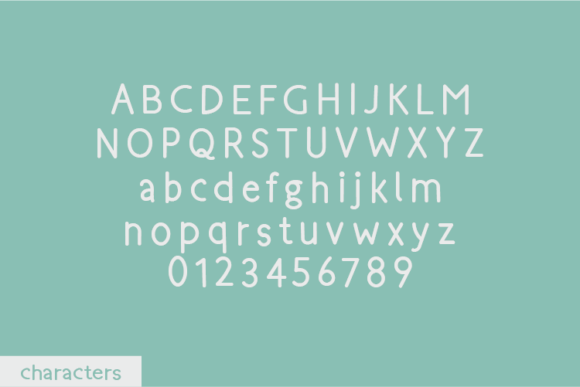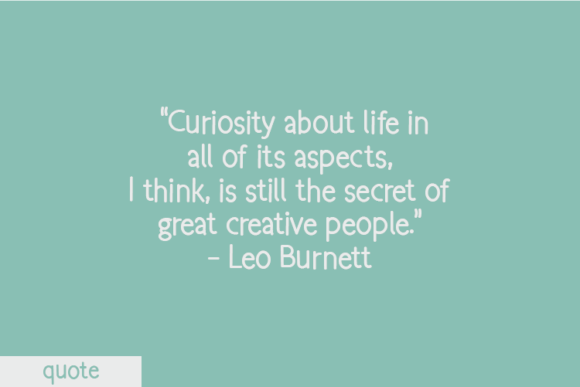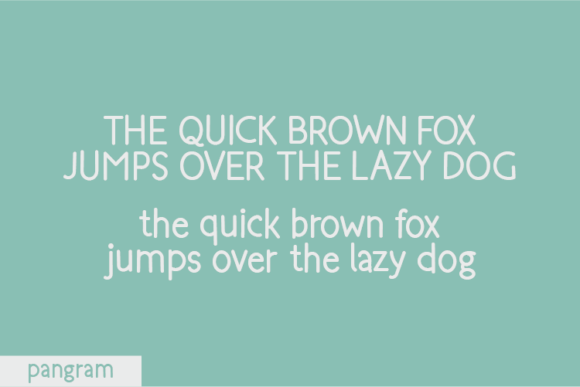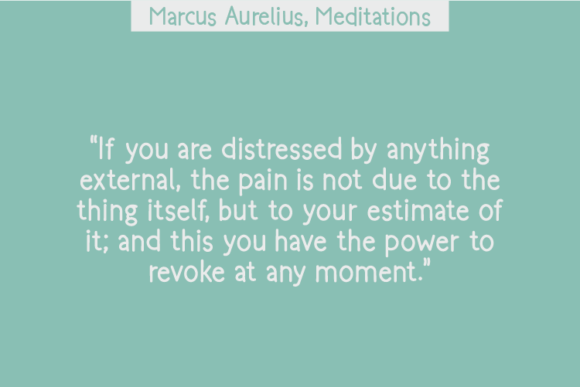
Breezing Font: A Unique Handwritten Style for Creative Designs
In the world of typography, fonts play a crucial role in conveying the tone and personality of a design. For designers and crafters looking for a unique and natural handwritten font, Breezing is an excellent choice. This font has gained popularity for its distinctive style, which is achieved without altering a single node in each character’s indentation. In this article, we’ll explore the features and benefits of Breezing Font, and how it can elevate your designs.
The Unique Feature of Breezing Font
Breezing Font stands out from other handwritten fonts due to its natural and effortless look. The font’s creator has carefully crafted each character to maintain its original indentation, giving it a genuine handwritten feel. This unique feature makes Breezing Font perfect for designs that require a personal touch, such as quotes, notes, and product designs.
Perfect for Quotes, Notes, and Product Designs
Breezing Font is an excellent choice for designers and crafters who work with quotes, notes, and product designs. The font’s natural and flowing style makes it ideal for:
- Quotes: Add a personal touch to your inspirational quotes, and make them stand out with Breezing Font.
- Notes: Use Breezing Font to create beautiful and elegant notes for journals, planners, and organizers.
- Product Designs: Elevate your product designs, such as t-shirts, mugs, and stationery, with the unique and eye-catching style of Breezing Font.
Benefits of Using Breezing Font
Using Breezing Font in your designs offers several benefits:
- Unique Style: Breezing Font’s distinctive style sets it apart from other fonts, making your designs more noticeable and memorable.
- Versatility: The font’s natural and effortless look makes it suitable for a wide range of design projects, from digital to print.
- Elegance: Breezing Font adds a touch of elegance and sophistication to your designs, making them perfect for high-end brands and products.
Tips for Using Breezing Font Effectively
To get the most out of Breezing Font, follow these tips:
- Pair with Other Fonts: Combine Breezing Font with other fonts to create a unique and visually appealing design.
- Experiment with Colors: Try out different colors to find the perfect match for your design and brand.
- Use for Headlines and Body Text: Use Breezing Font for headlines, body text, or a combination of both to create a cohesive look.
Breezing Font is a unique and natural handwritten font that can elevate your designs and set them apart from the crowd. Its distinctive style, versatility, and elegance make it an excellent choice for designers and crafters looking for a font that can add a personal touch to their work. With its wide range of applications, from quotes and notes to product designs, Breezing Font is a valuable addition to any designer’s toolkit.